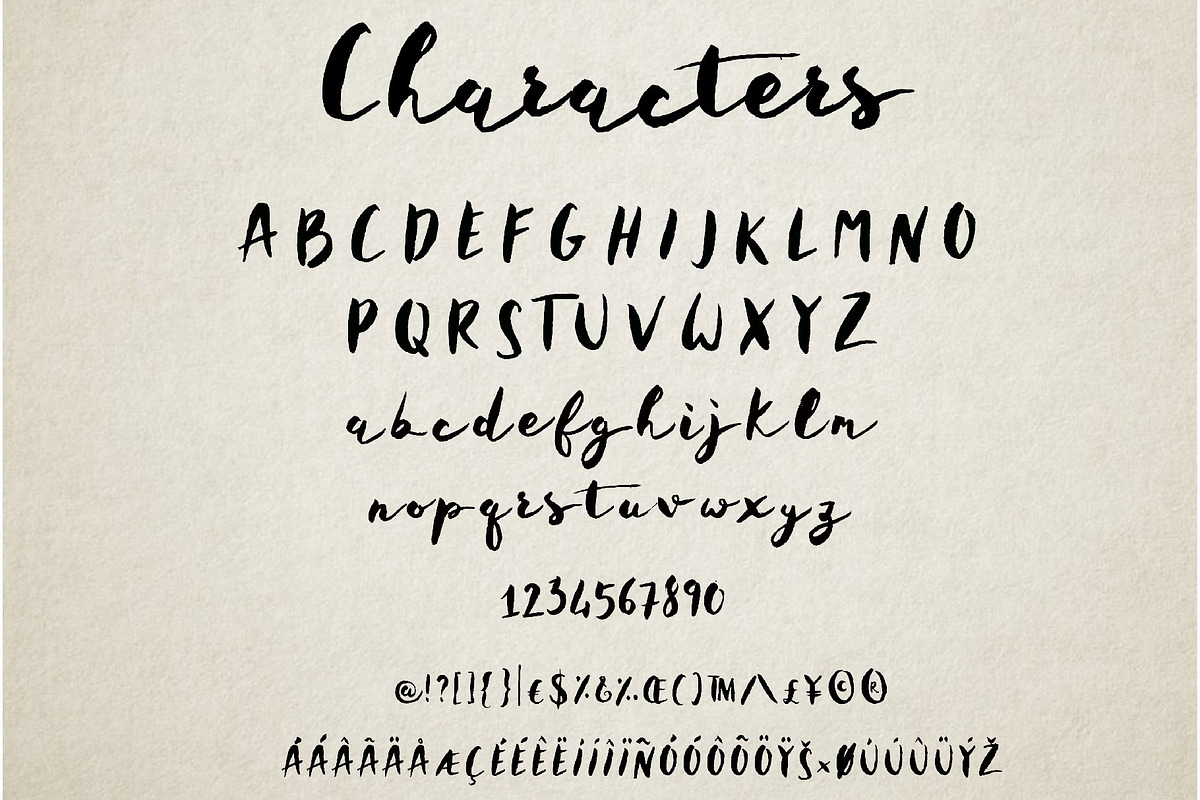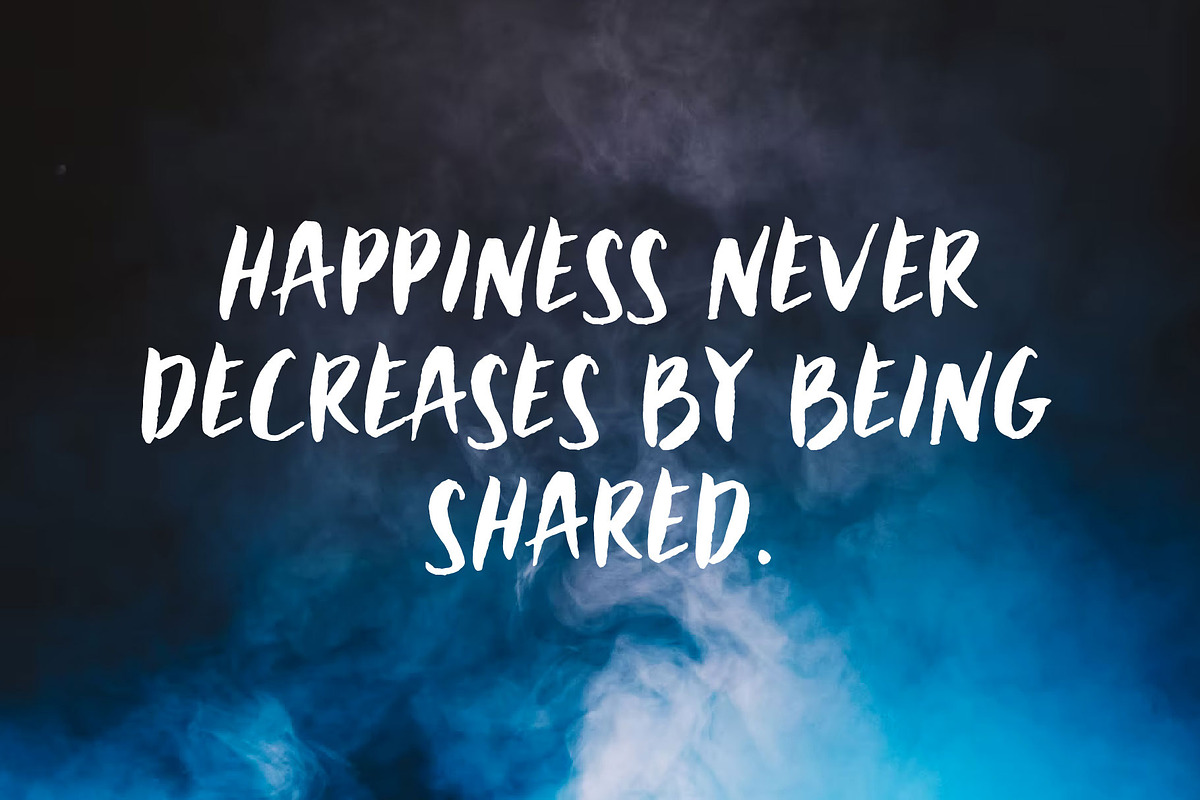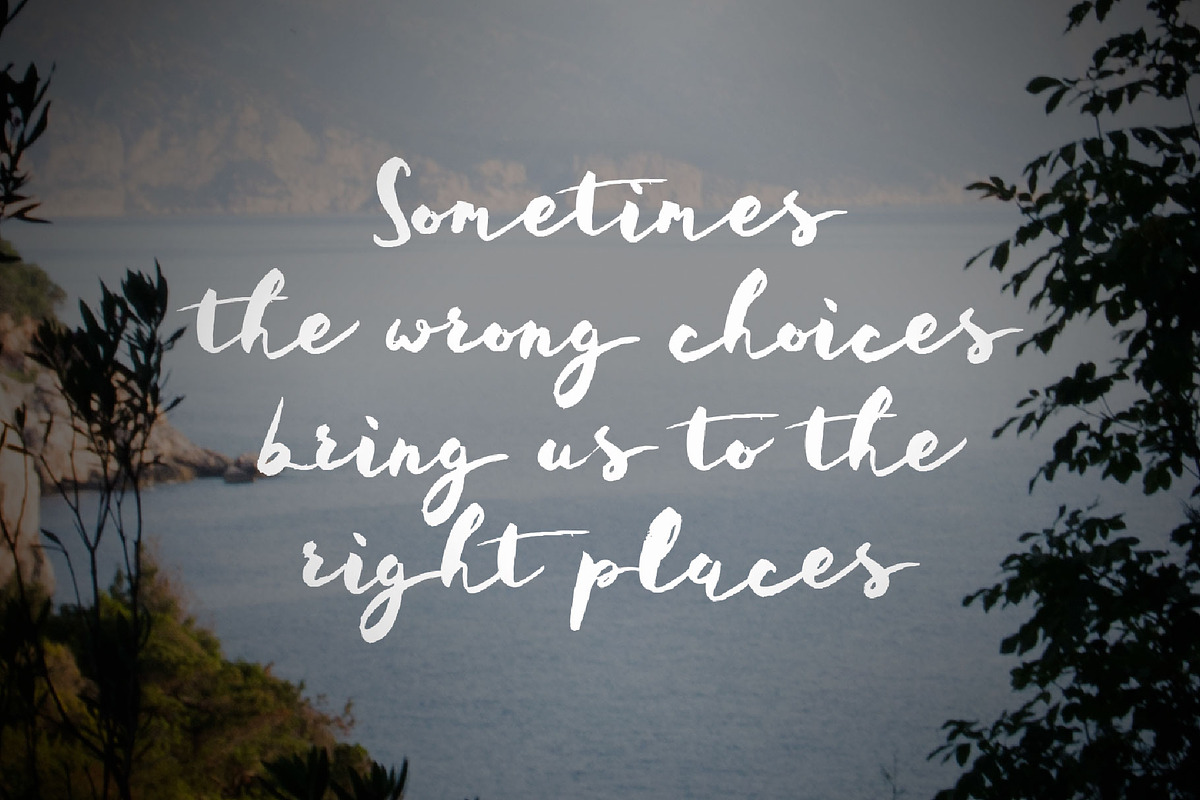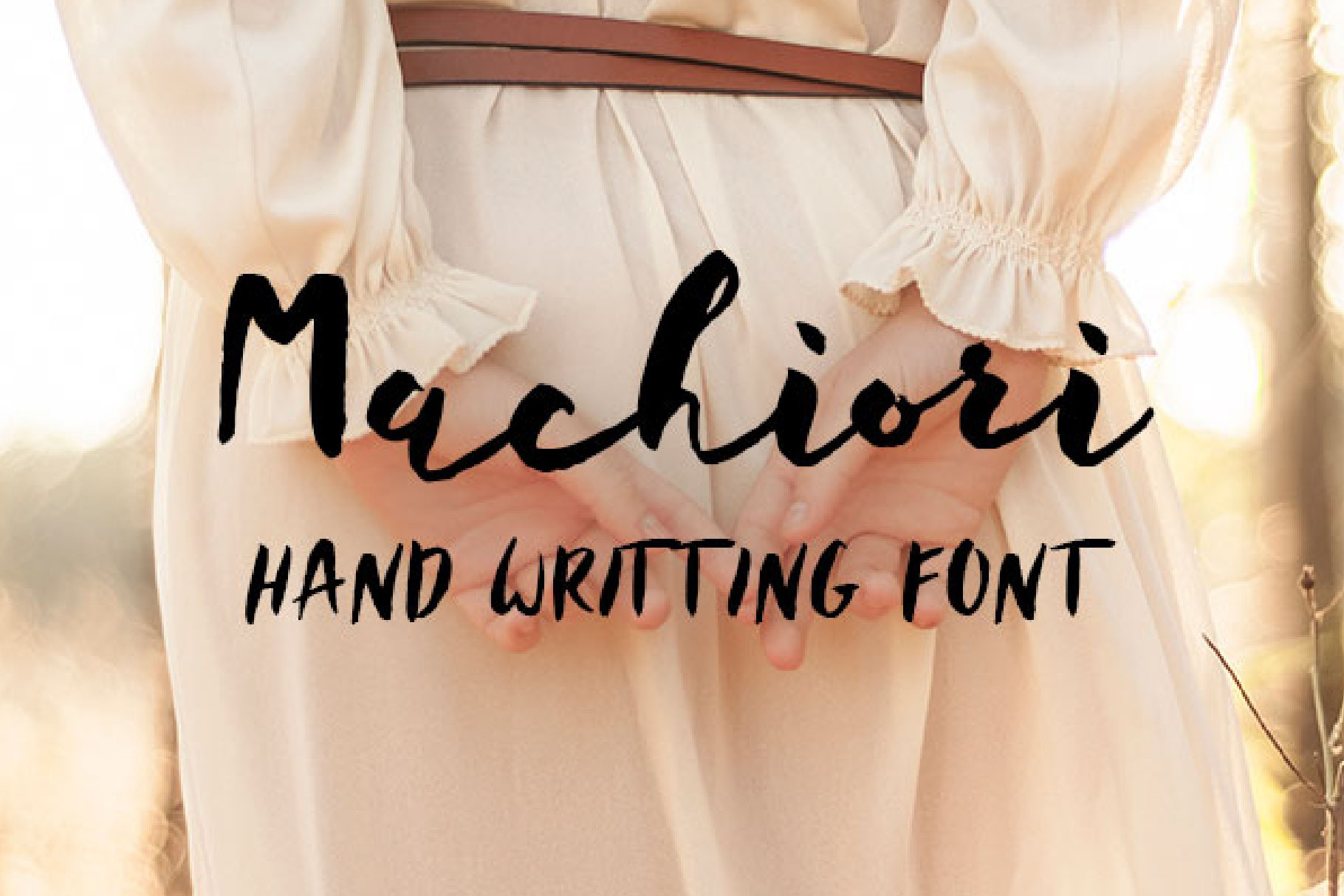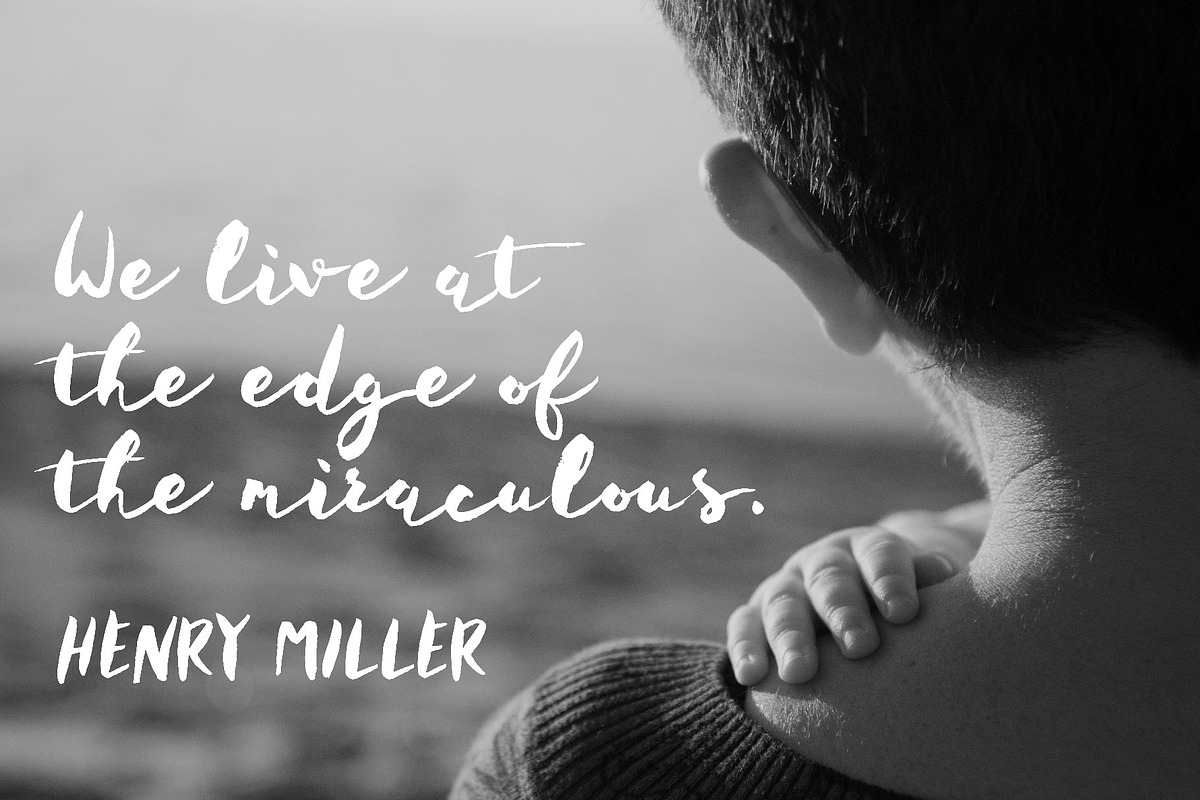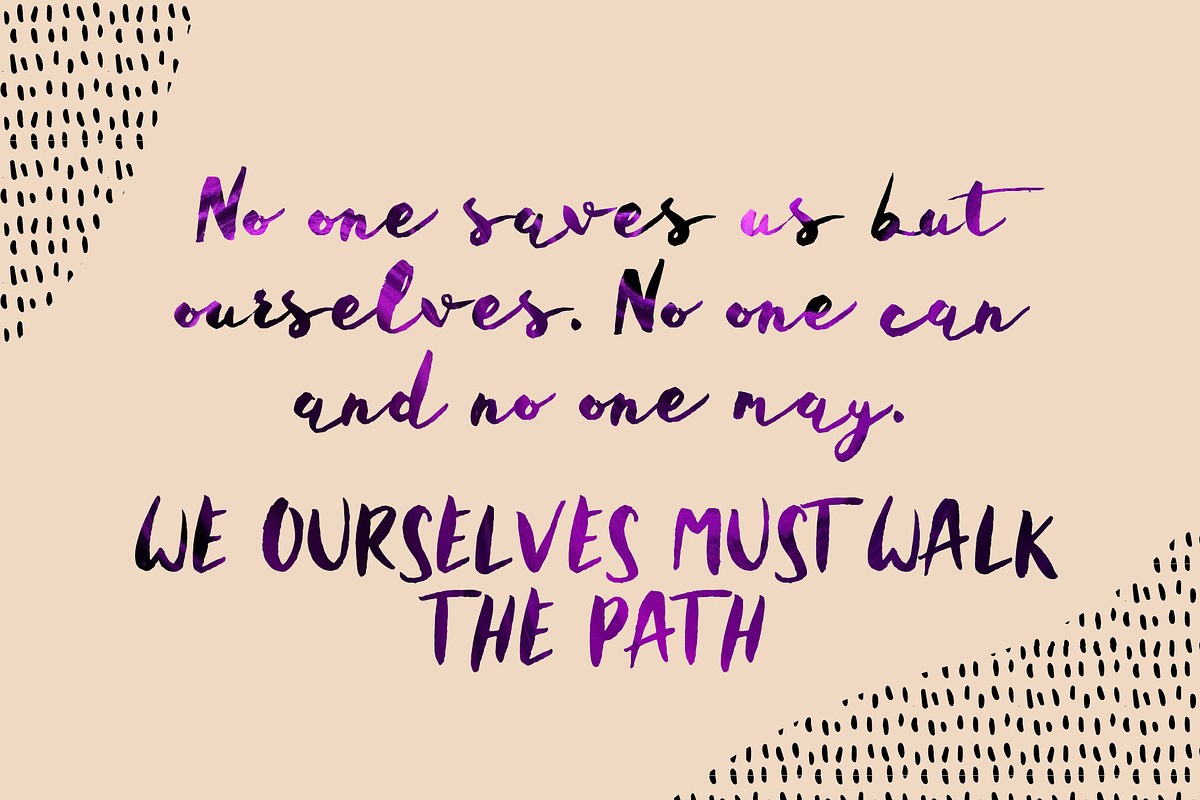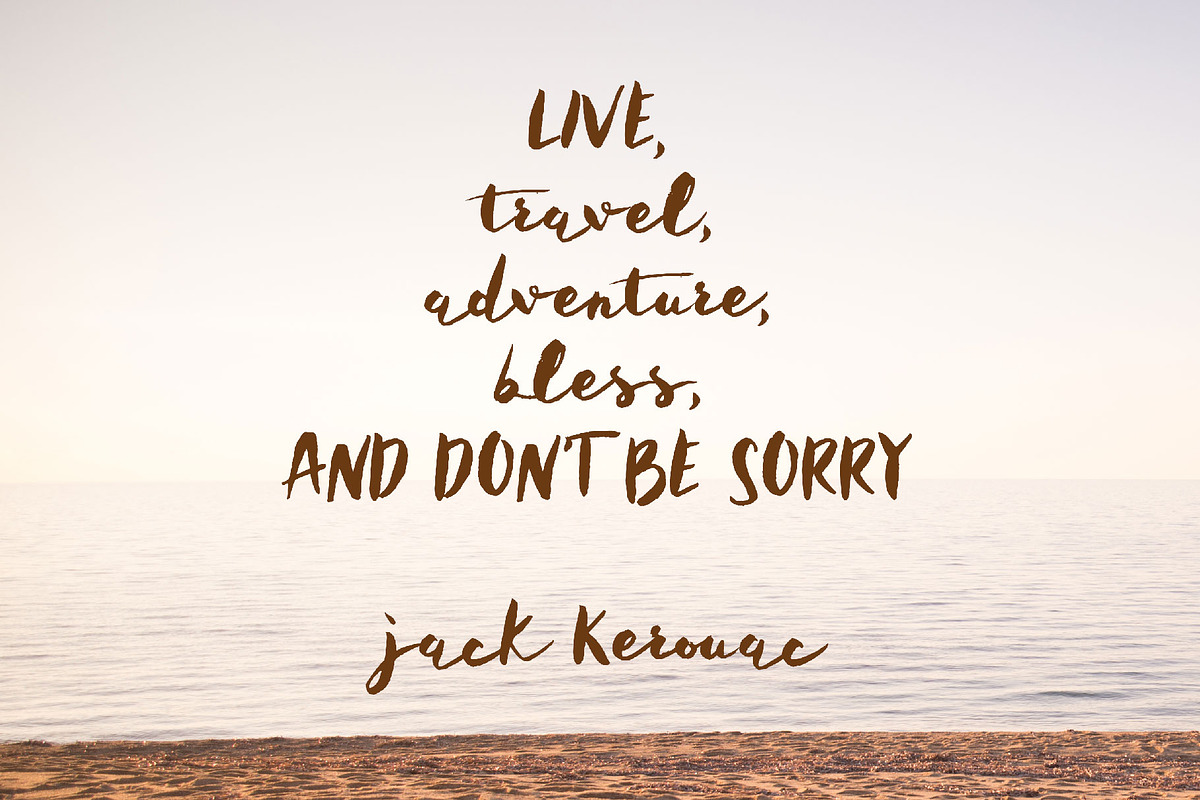
Machiori - Brush Font
Machiori is a beautiful and easy-going handwritten font with a natural flow, perfect for use in a wide range of friendly and fashionable projects. This bouncy cursive font can add tons of style in projects that need it most.
It’s the perfect choice for personal branding projects, handwritten quotes, homeware designs, product packaging – or simply as a modern & stylish text overlay to any background image.